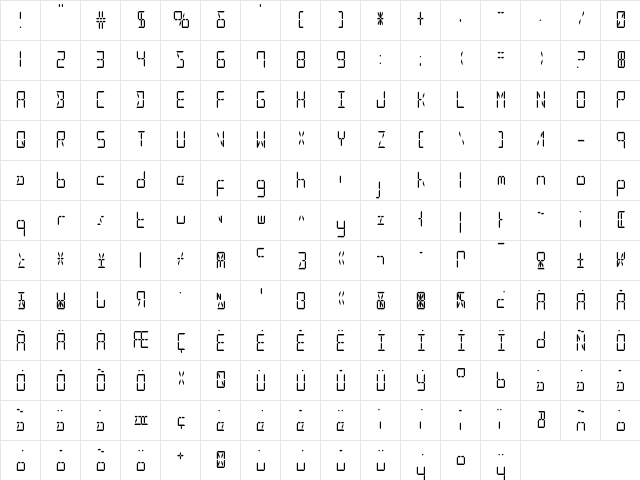
LED Sled Straight Condensed Condensed
Design Context for LED Sled Straight Condensed Typeface
LED Sled Straight Condensed takes a measured approach to typography — its balanced proportions and neutral character make it a reliable workhorse for both digital and print work. The condensed width makes it efficient for tight spaces without sacrificing legibility.